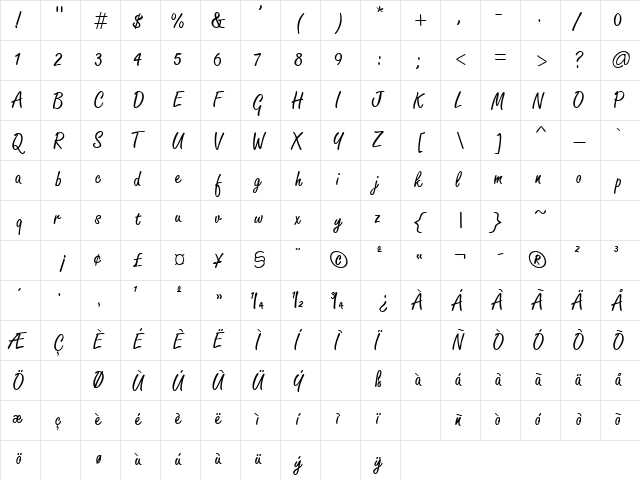
Carefree Retro Normal
Design Context for Carefree Retro Typeface
Carefree Retro has the warm character of retro typography — evoking diners, record sleeves, and the golden age of print advertising.
Font Pairing: Combine Carefree Retro with a simple slab or neutral sans — period-accurate companions reinforce the vintage feel without competing for attention.
Pro Tip: Use Carefree Retro for headlines and pull quotes rather than body copy — its personality is best appreciated in short, focused bursts.